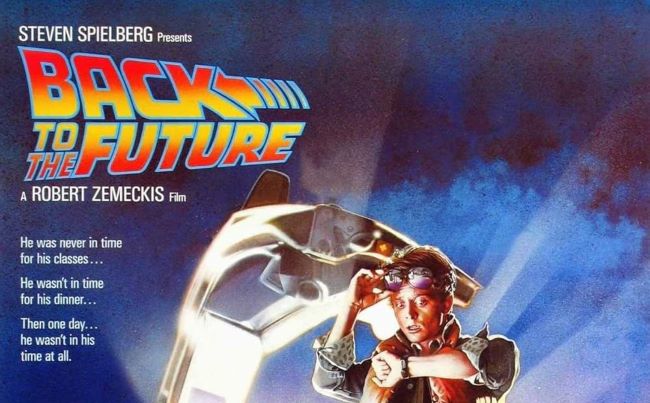
Back to the Future Font
Back to the Future Font rockets through decades with electrifying velocity, featuring razor-sharp angles and kinetic energy that defy temporal boundaries. This legendary typography doesn’t just sit on the page—it accelerates forward, embodying the thrill of DeLorean-powered adventures and paradox-defying escapades that defined 1980s blockbuster cinema.
The movie’s title uses a custom, slanted, and highly stylized typeface with sharp edges and dynamic angles, emphasizing movement—almost as if the letters themselves are racing through time. Designers often turn to the Back to the Future font when creating retro-inspired posters, fan art, or logos that need a bold, cinematic flair.
Back to the Future Font crushes it for 80s throwback parties, arcade gaming branding, retro tech startups, and nostalgia-driven merchandise. Its aggressive slant screams “88 miles per hour” before you’ve finished reading.
This typeface proves fonts can transcend eras—simultaneously vintage and futuristic, perfectly capturing that magical moment when past collides with tomorrow.